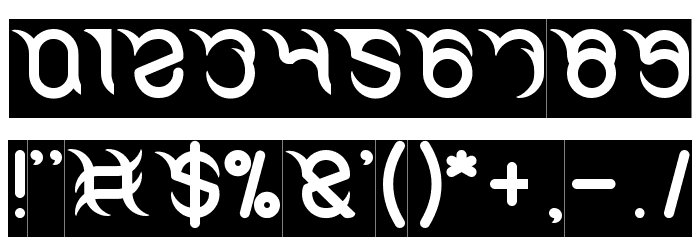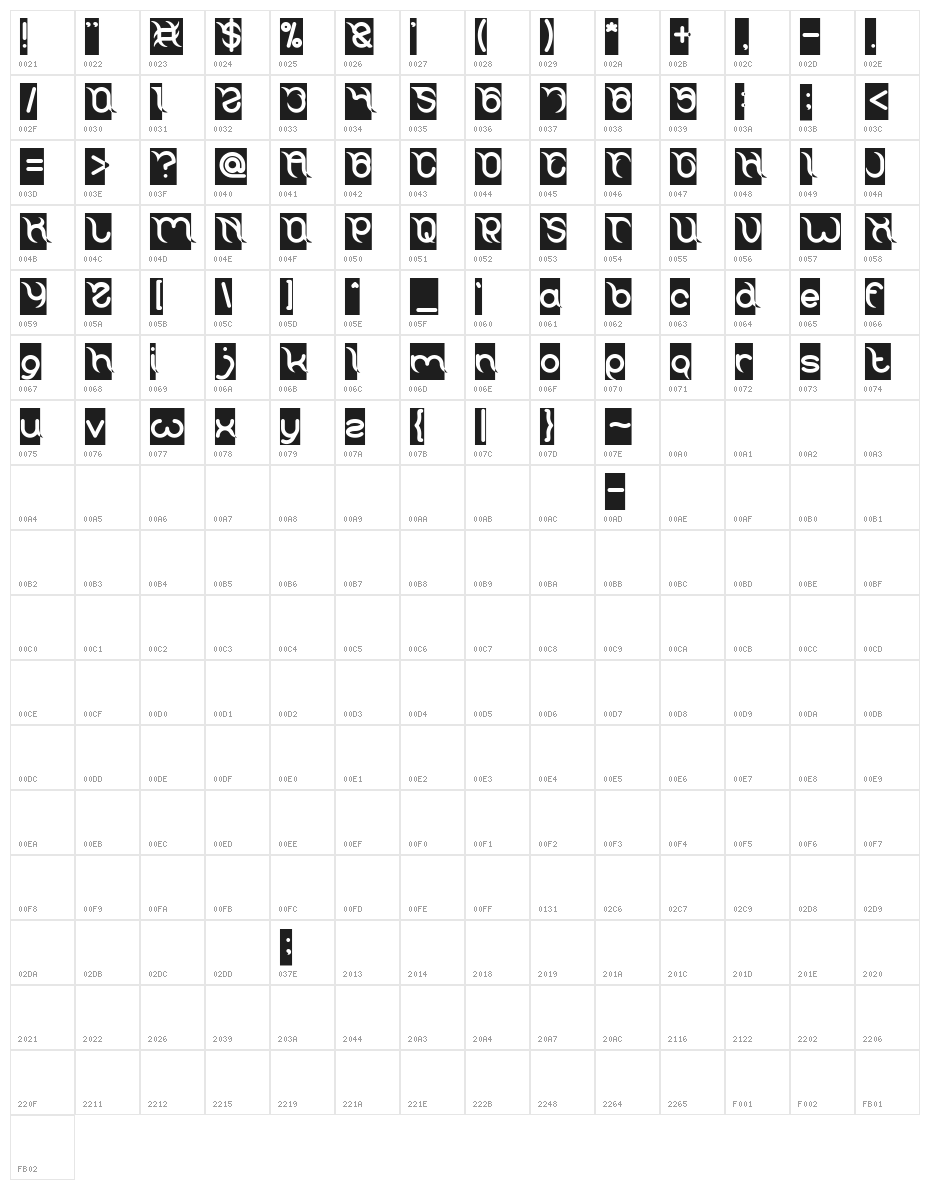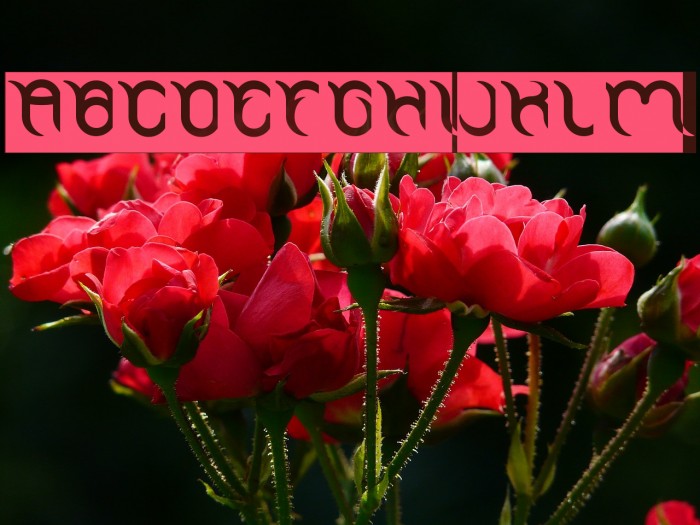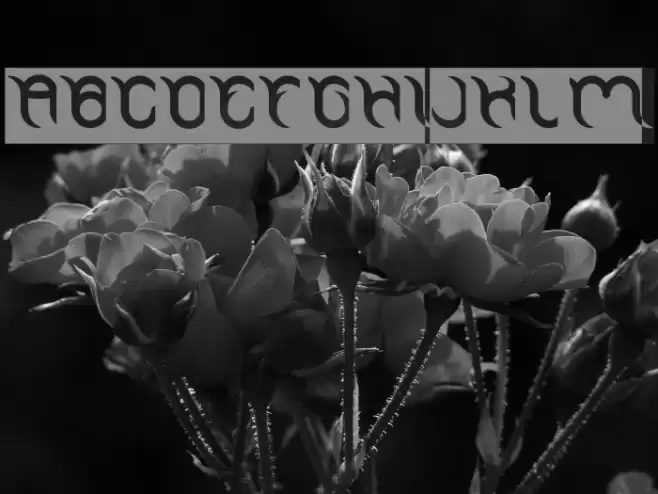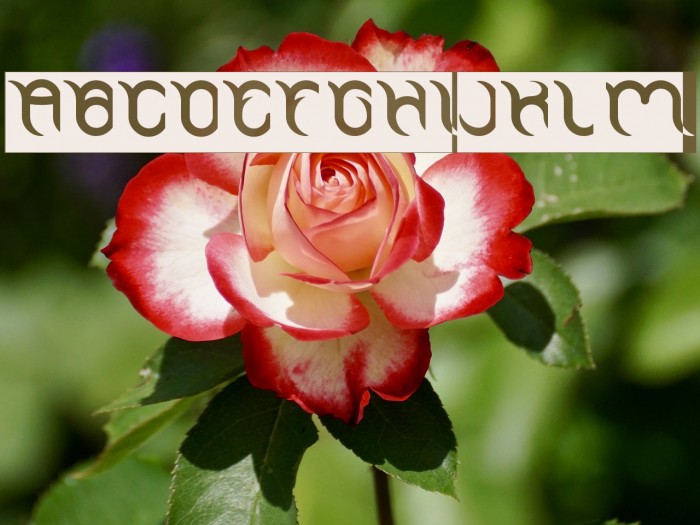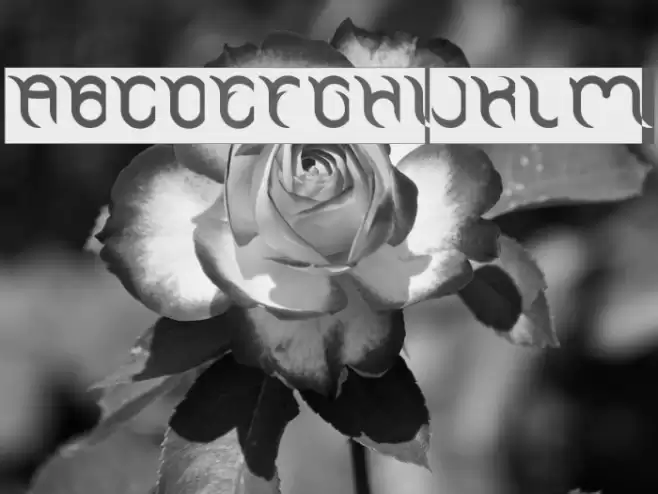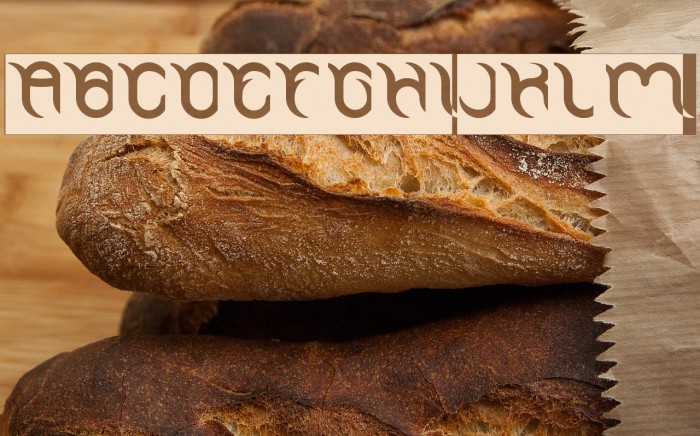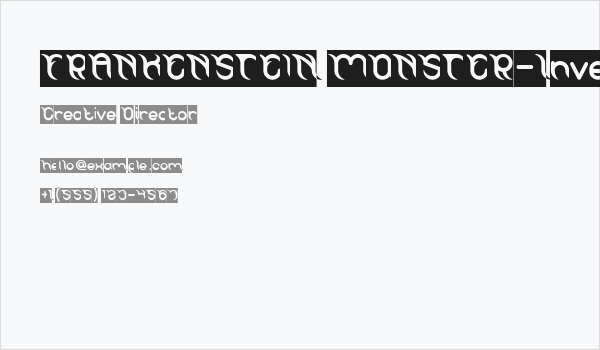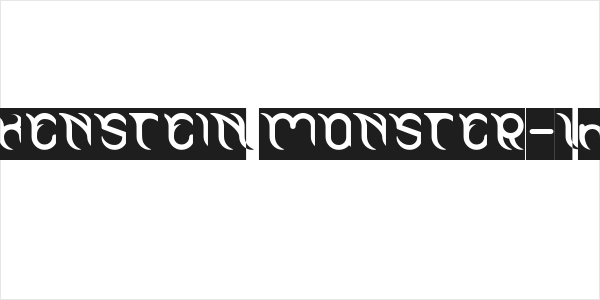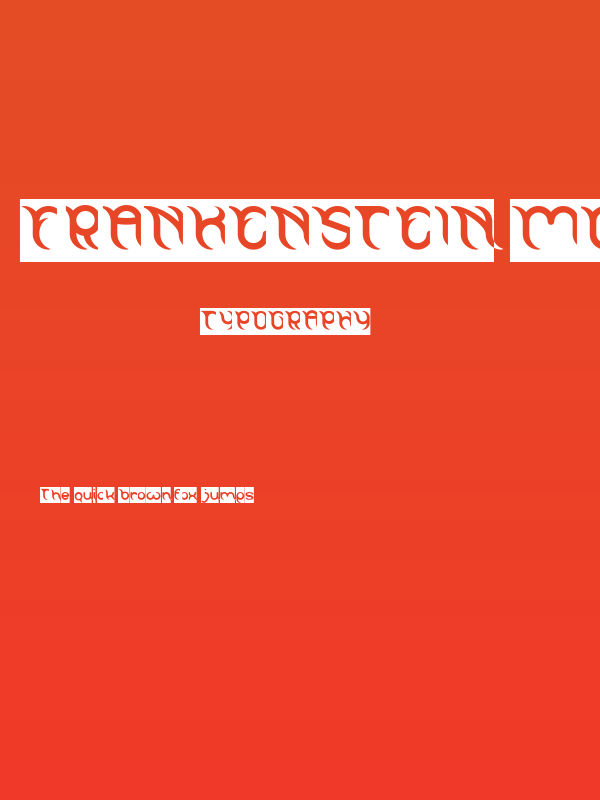
FRANKENSTEIN MONSTER-Inverse Font
FRANKENSTEIN MONSTER-Inverse Description
This font features a bold and striking design with a unique, decorative flair. Each character is crafted with a distinct curvature and sharp edges, giving it a monstrous and eerie appearance. The letters have a consistent thickness, with some characters exhibiting elongated tails or hooks that add to the dramatic effect. The overall style is reminiscent of horror or gothic themes, making it ideal for projects that require a bold and attention-grabbing typeface. The numbers and special characters maintain the same stylistic elements, ensuring uniformity across all glyphs.
| Use Case | Headlines, Posters, Themed Events |
| Proposed Projects | Ideal for horror-themed posters, Halloween invitations, or any project requiring a dramatic and eye-catching font. |